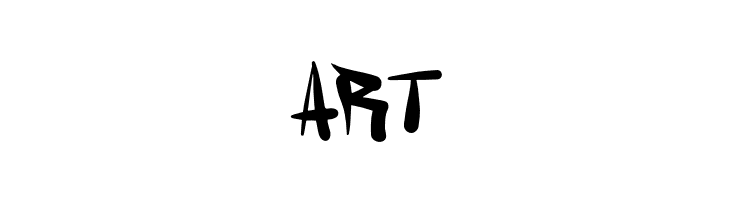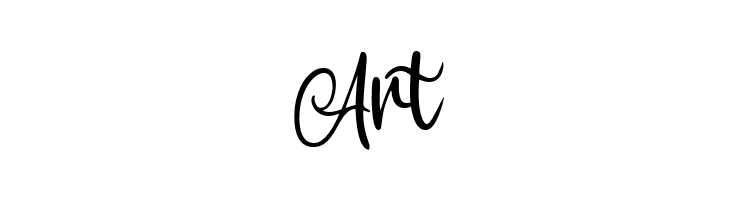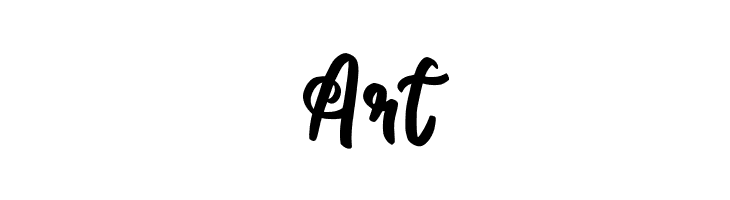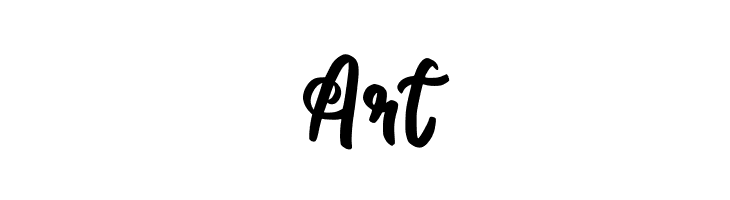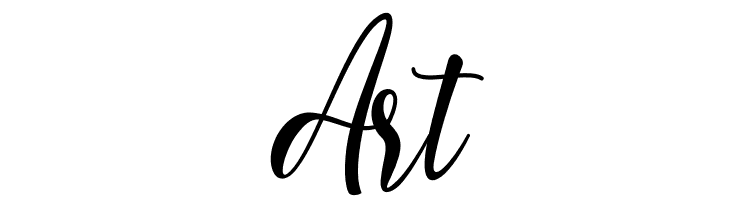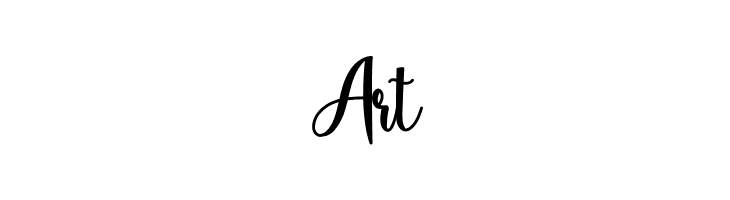
A bold, expressive handwritten font with dynamic and playful letterforms.
A fluid and elegant handwritten font with smooth, flowing strokes.
A playful, handwritten font with fluid, connected letterforms and a casual style.
A charming, flowing script font with elegant, connected letters.
A bold, expressive script font with fluid, dynamic strokes.
A bold, modern script font with interconnected characters and a playful yet elegant style.
An elegant, flowing script font with sophisticated cursive letterforms.
A playful and elegant handwritten script font with flowing cursive lines.
A playful, hand-drawn font with tall, narrow characters and a whimsical style.
A stylish, elegant script font with flowing, connected characters.